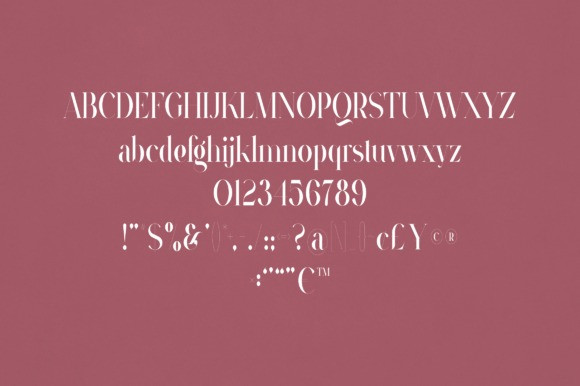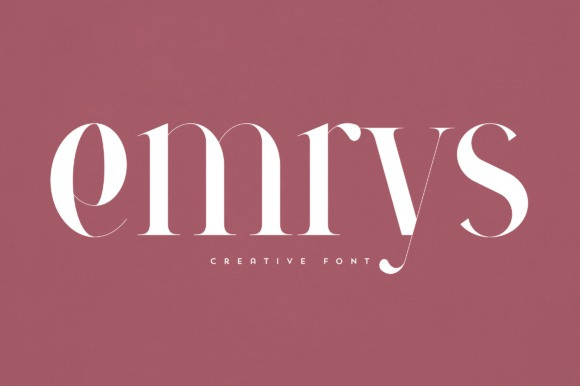
Emrys Font
Emrys Font is an elegant and versatile font that will make your typography truly unique! It will enchant every logo, branding, headline, or plain text!